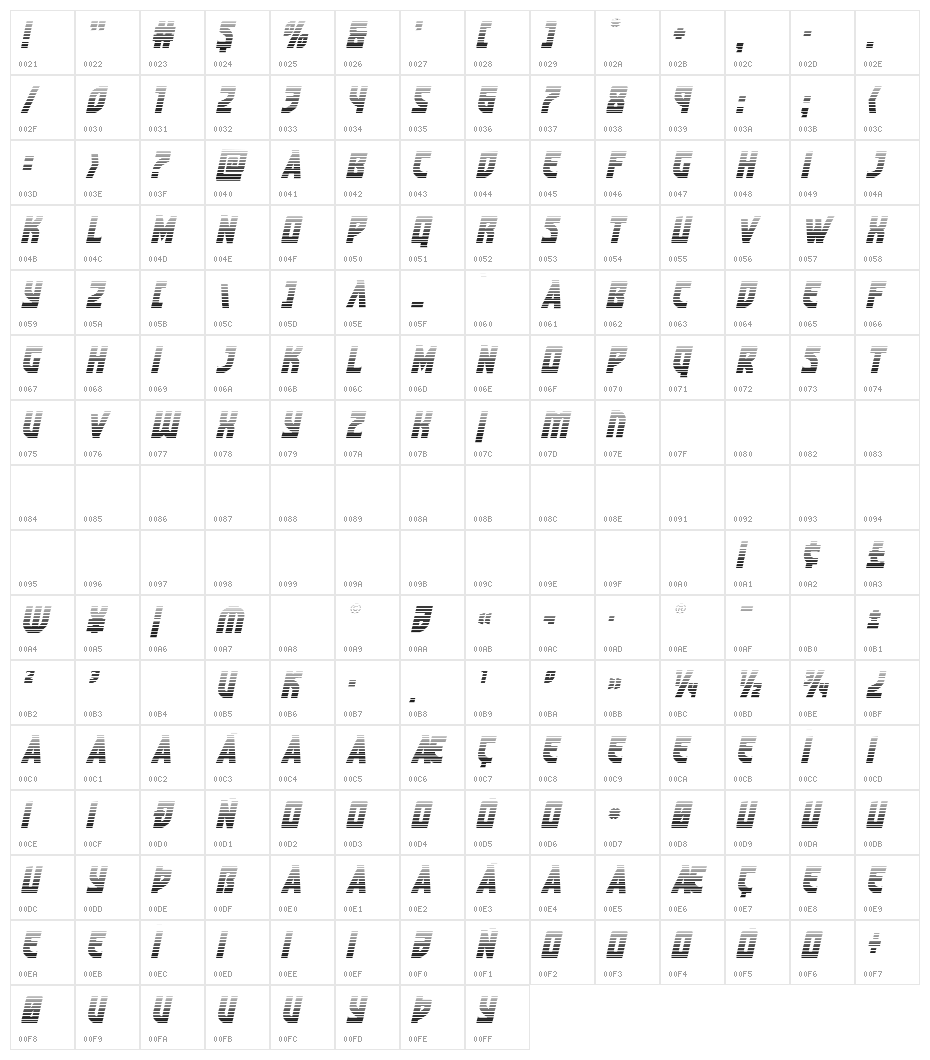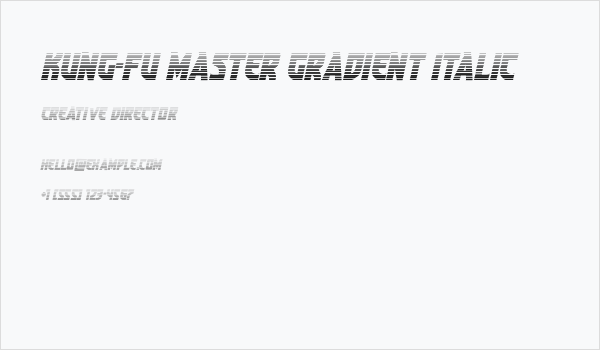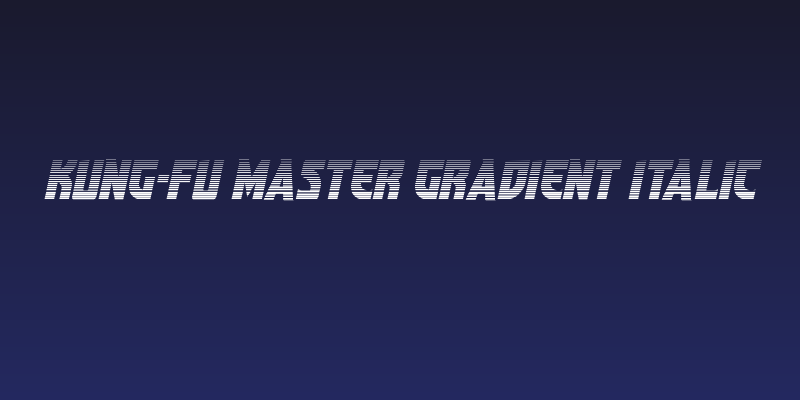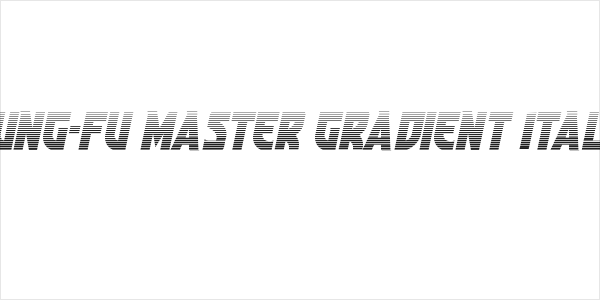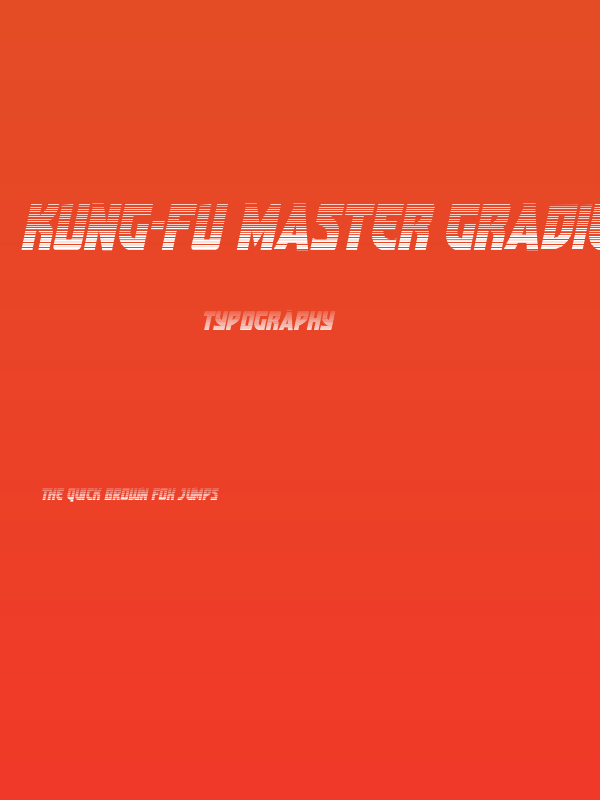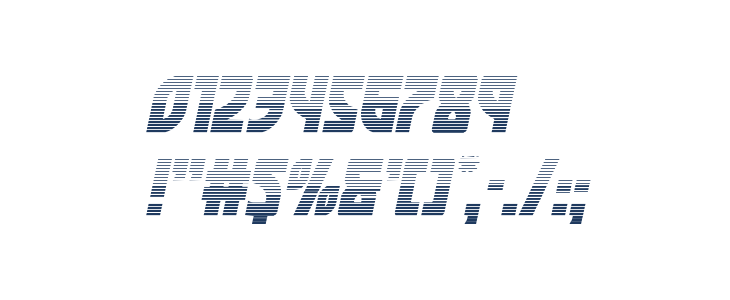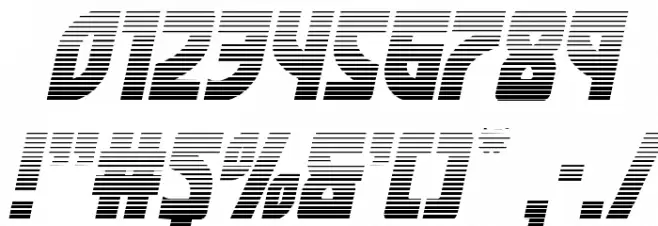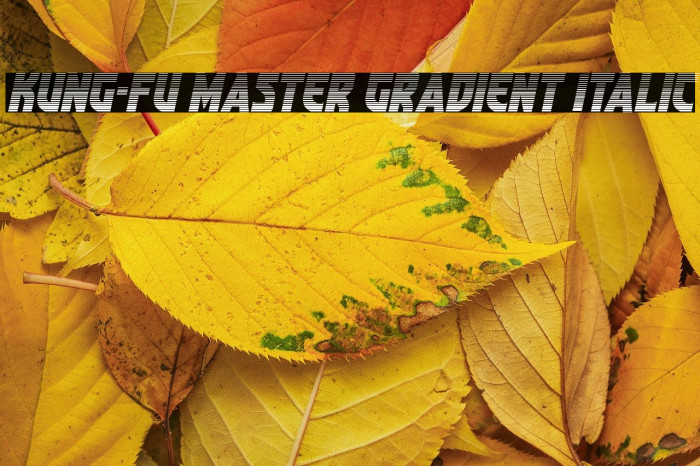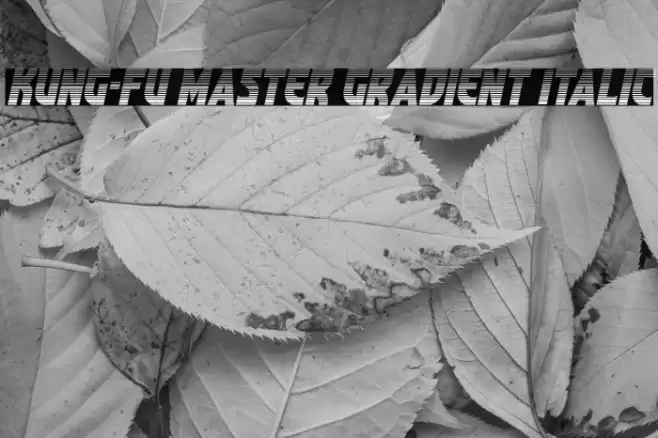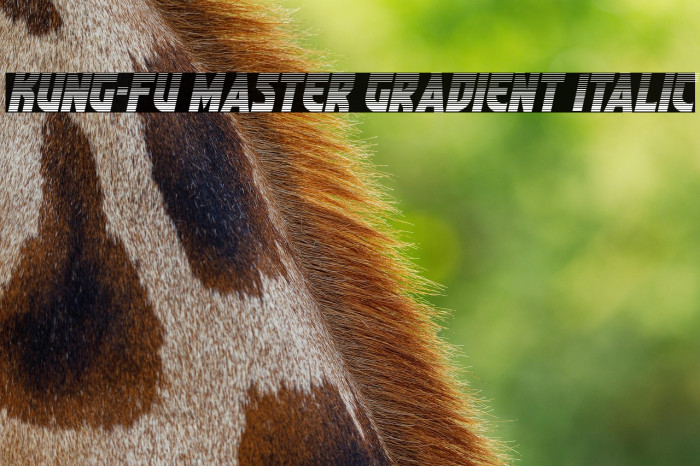
Kung-Fu Master Gradient Italic Font
Kung-Fu Master Gradient Italic Description
This font features a dynamic, italicized style with a distinct gradient effect created by horizontal lines that form each character. The design is bold and eye-catching, making it ideal for projects that require a strong visual impact. The uppercase and lowercase letters maintain a consistent slant, enhancing the sense of motion and energy. Numbers and special characters are crafted with the same attention to detail, ensuring uniformity across all elements. The font's unique appearance makes it suitable for modern, edgy designs.
| Proposed Projects | Ideal for sports branding, video game titles, posters, and dynamic advertising campaigns. |